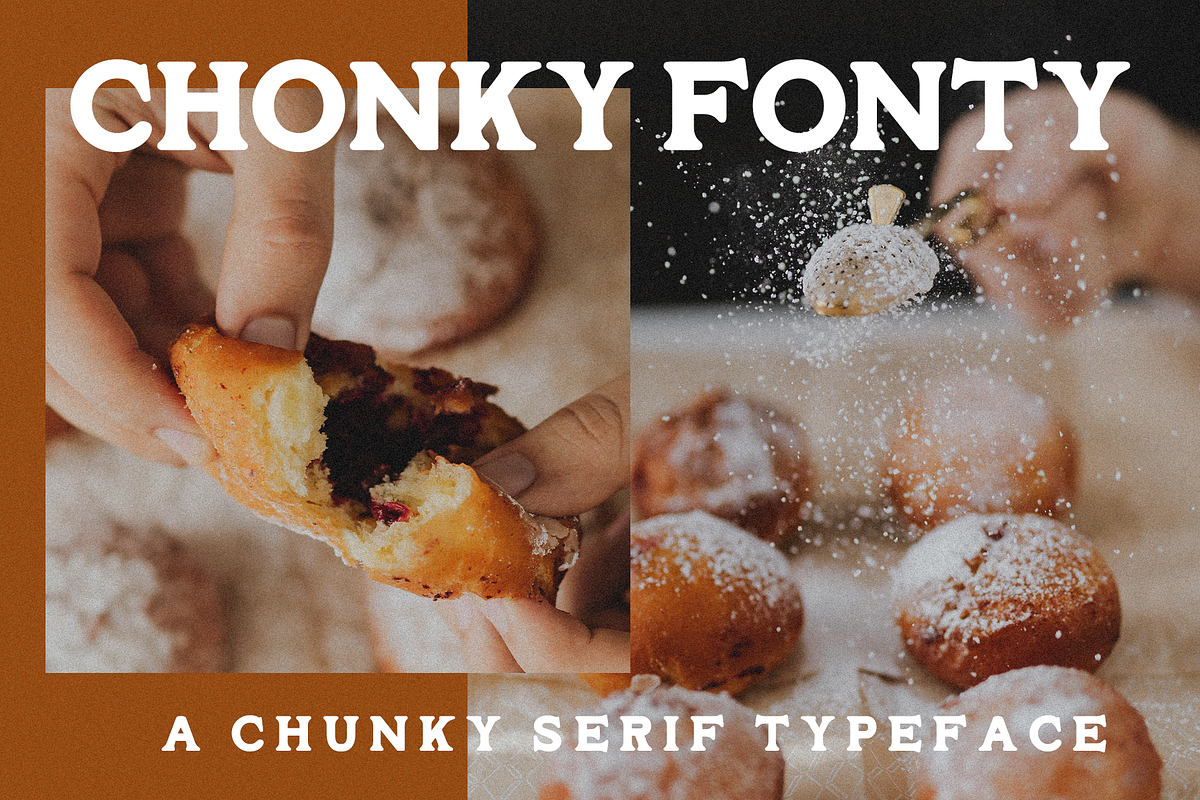
Chonky Fonty | A Chunky Display Font Free Download is a bold, playful, and eye-catching typeface designed to make a statement. With its thick, exaggerated letterforms, this font is perfect for high-impact headlines, posters, branding, logos, and any design project that needs a fun and dynamic touch.
Chonky Fonty’s chunky style adds character and personality to any design, making it ideal for projects targeting a youthful audience or creative content that requires a bit of boldness and energy.